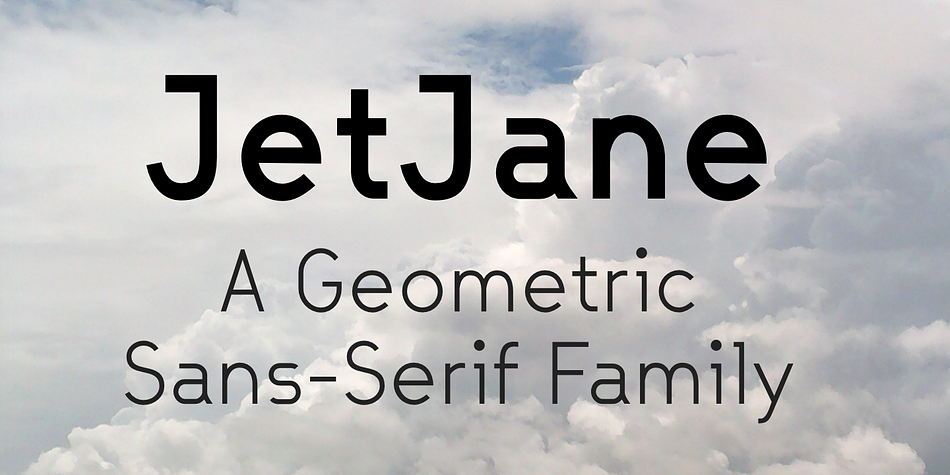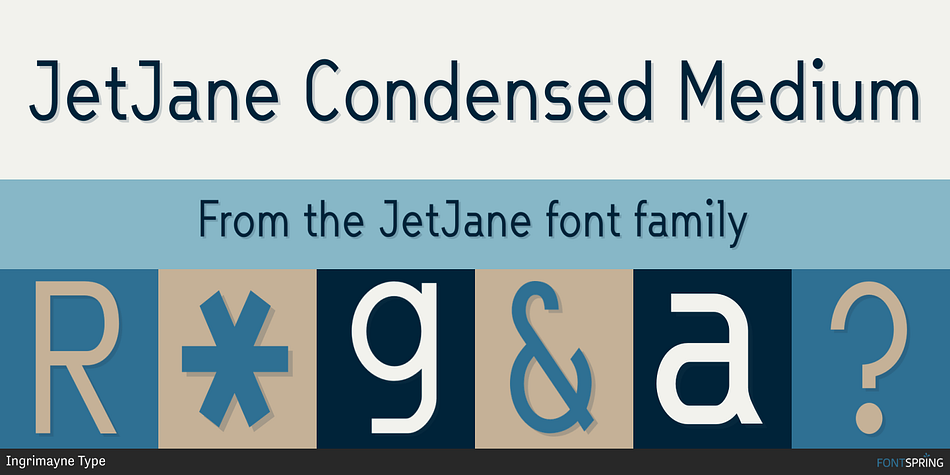
JetJane Condensed Medium
Designed by Robert Schenk, JetJane is a sans serif font family. This typeface has thirty-six styles and was published by Ingrimayne Type.
JetJane is a geometric sans-serif family. The family has two widths and each width has nine weights. Each of these 18 fonts comes with an accompanying italics version, giving the family a total of 36 members.
JetJane, like other geometric sans faces, is plain, unadorned, and highly legible. It is derived from JetJaneMono, a monospaced sans-serif face. This development is unusual because one expects the monospaced variants to be created after the proportional variant, if a monospaced variant is even produced. This development history results in some distinctive differences between JetJane and two other geometric sans faces from IngrimayneType, AndrewAndreas and Yassitf.